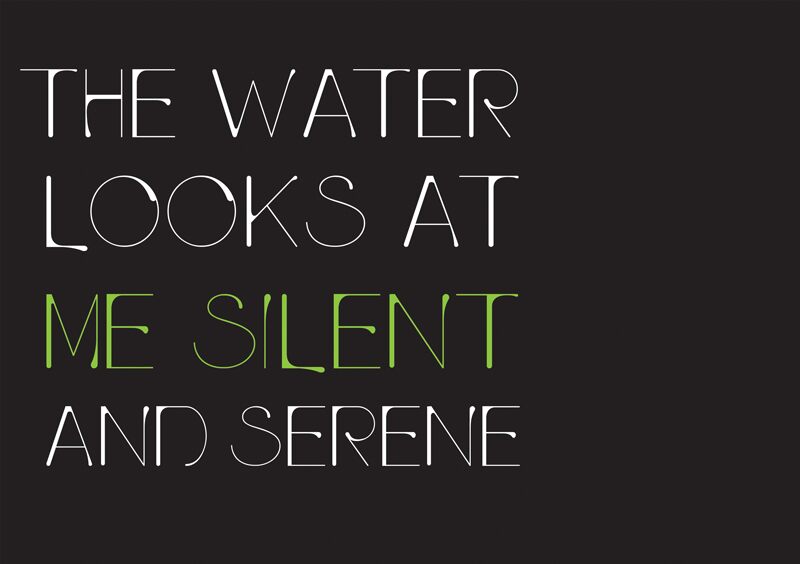
Pluvia Light is a captivating display font that exudes a sense of elegant sophistication. Designed by Grant Milne, this light weight typeface boasts a striking, calligraphic aesthetic, with its delicate strokes and fluid curves. The distinctive character shapes and playful, yet refined, personality make Pluvia Light an ideal choice for a variety of design applications, from high-end branding to captivating editorial layouts.
Its versatility and visual appeal make it a standout option, particularly in projects where a touch of refined elegance is desired.